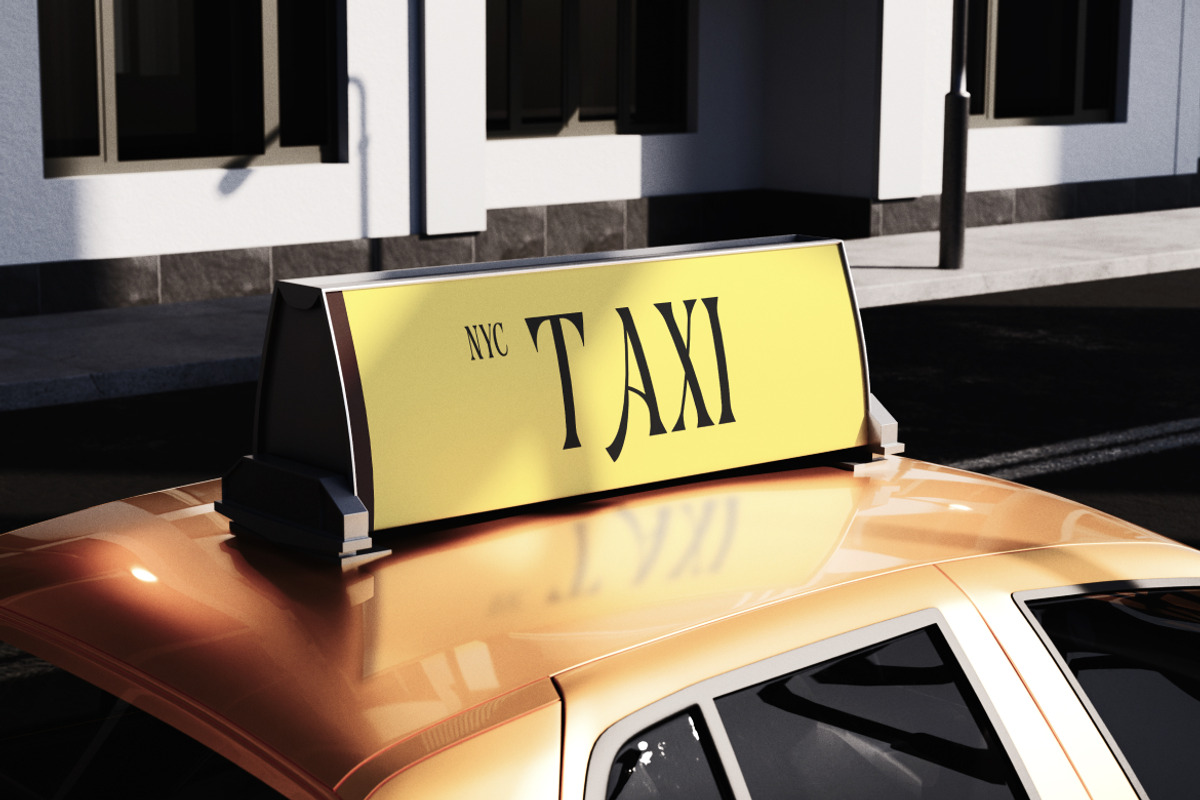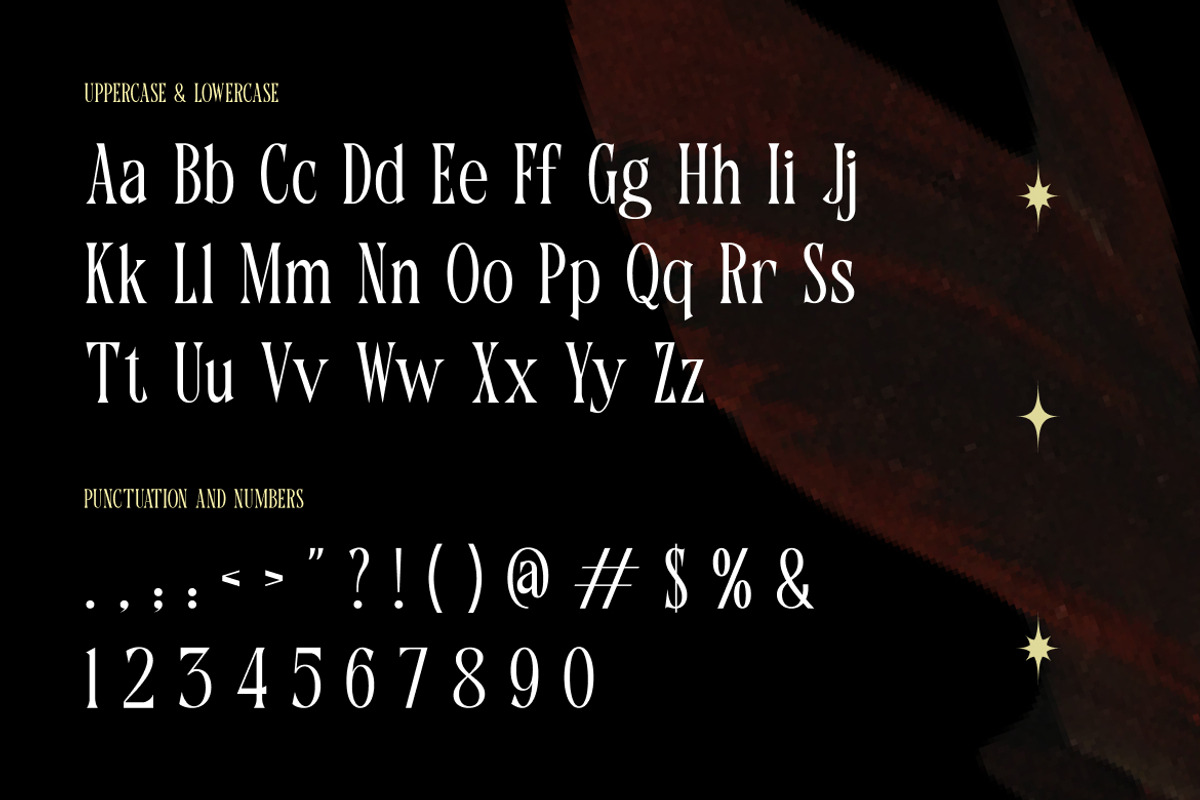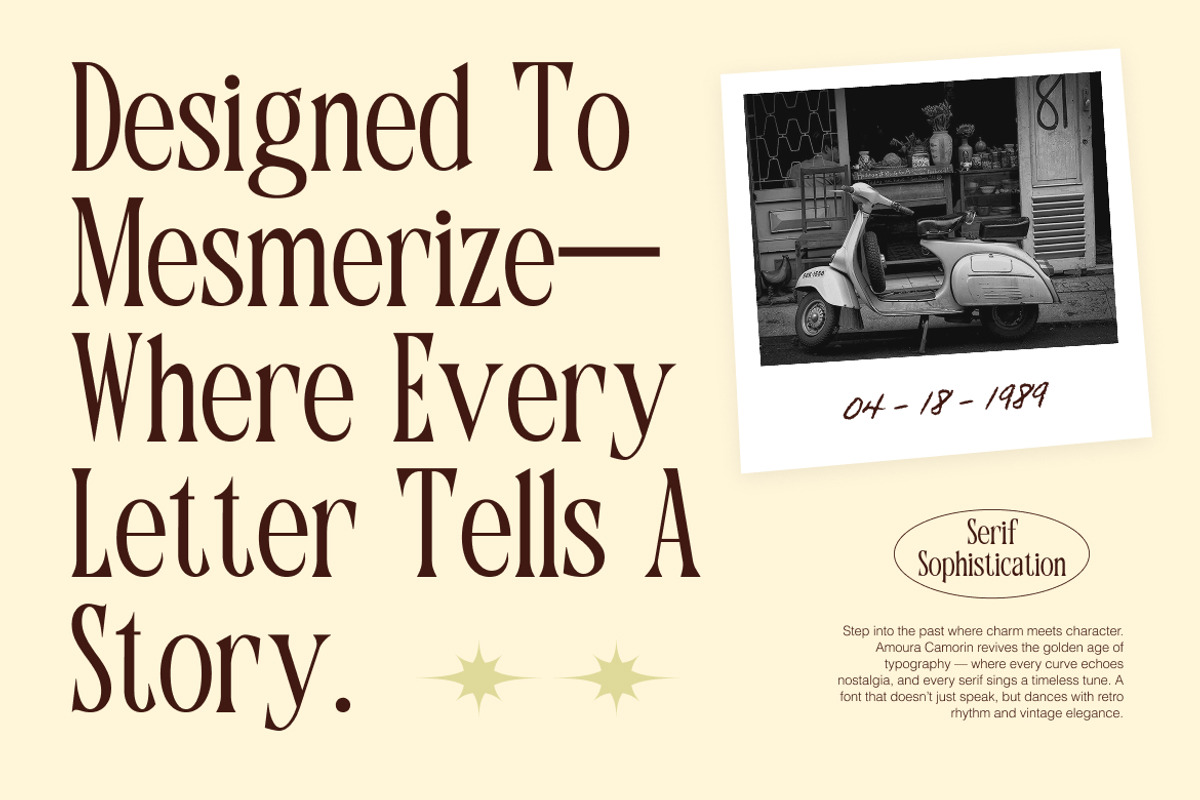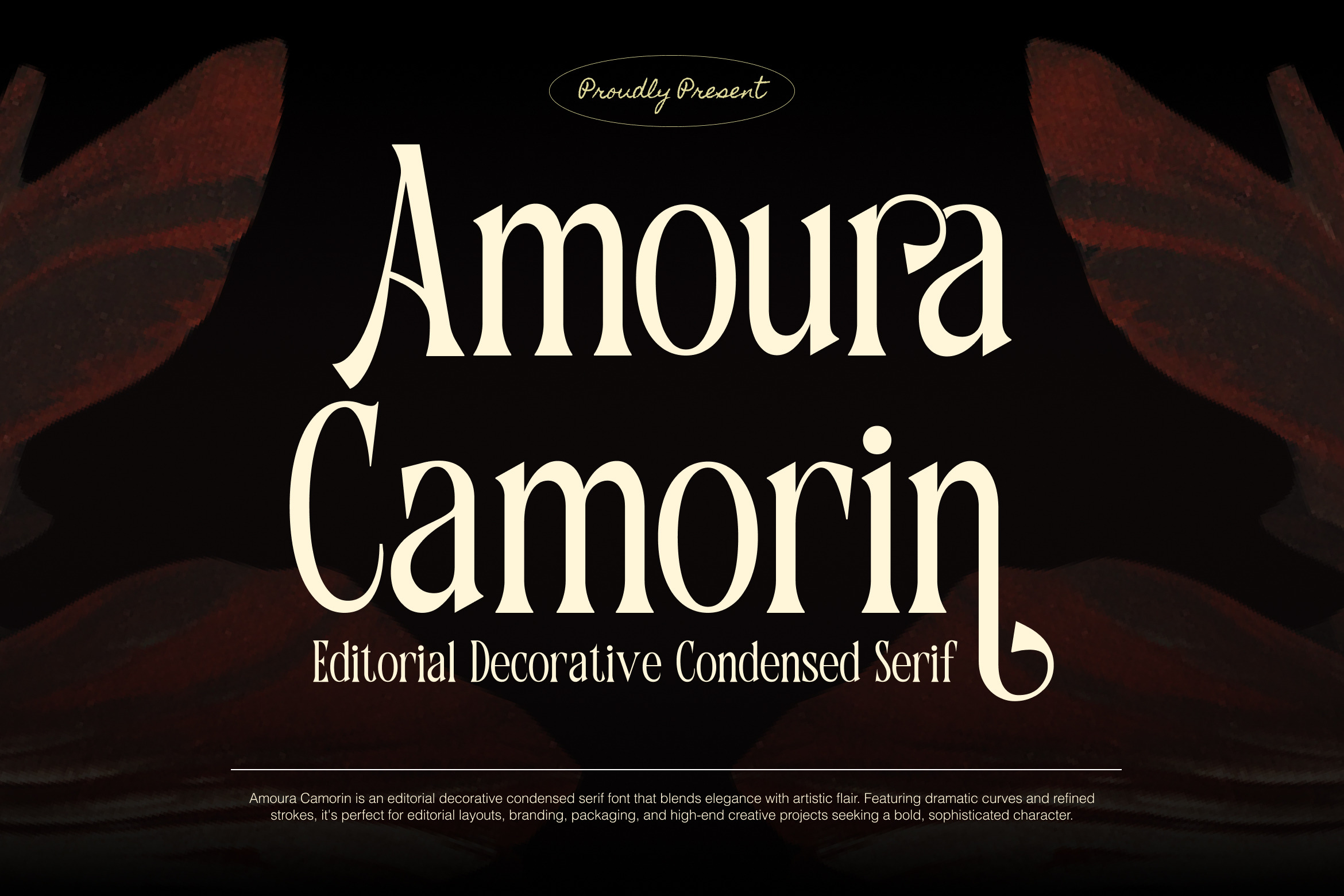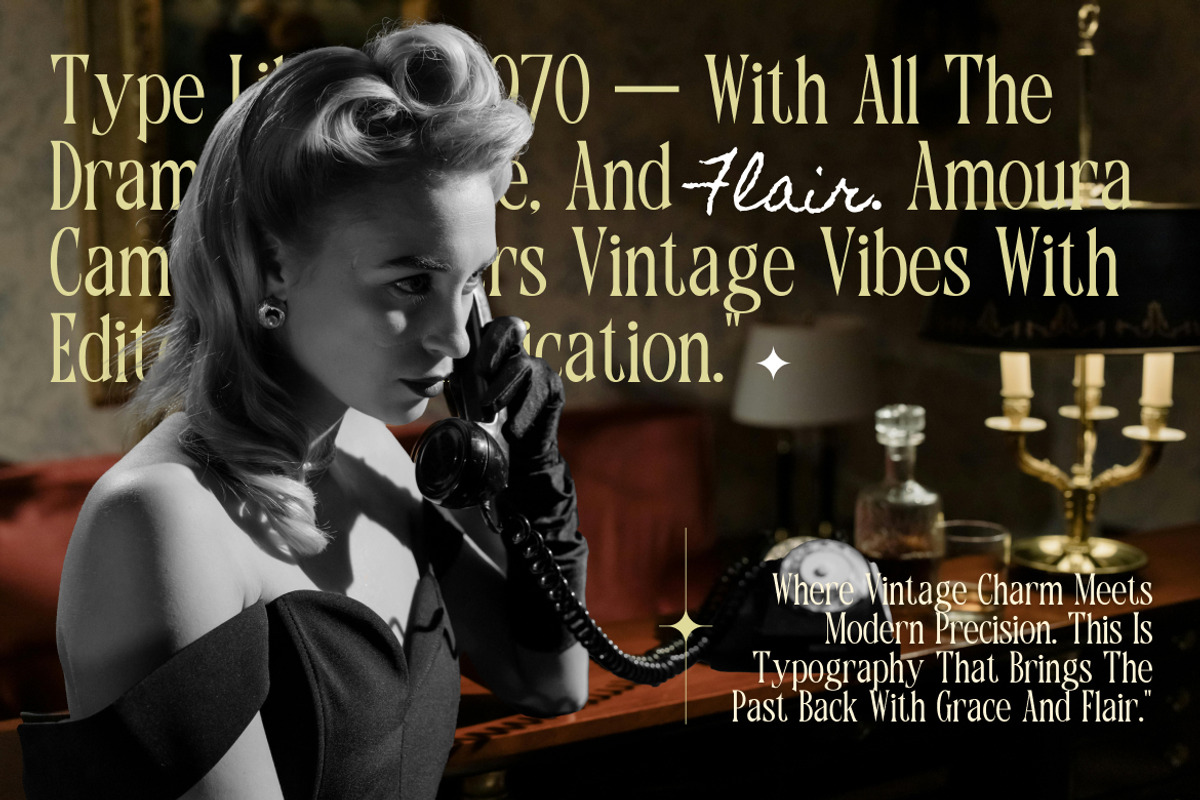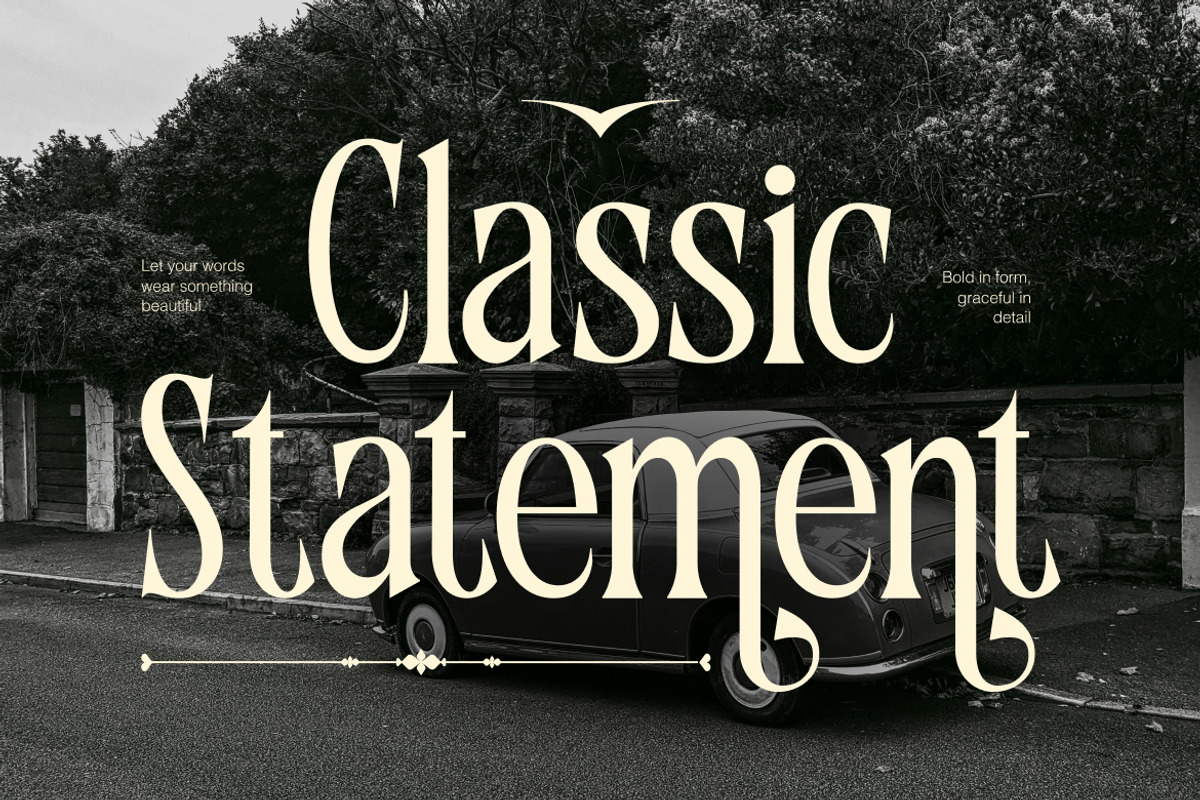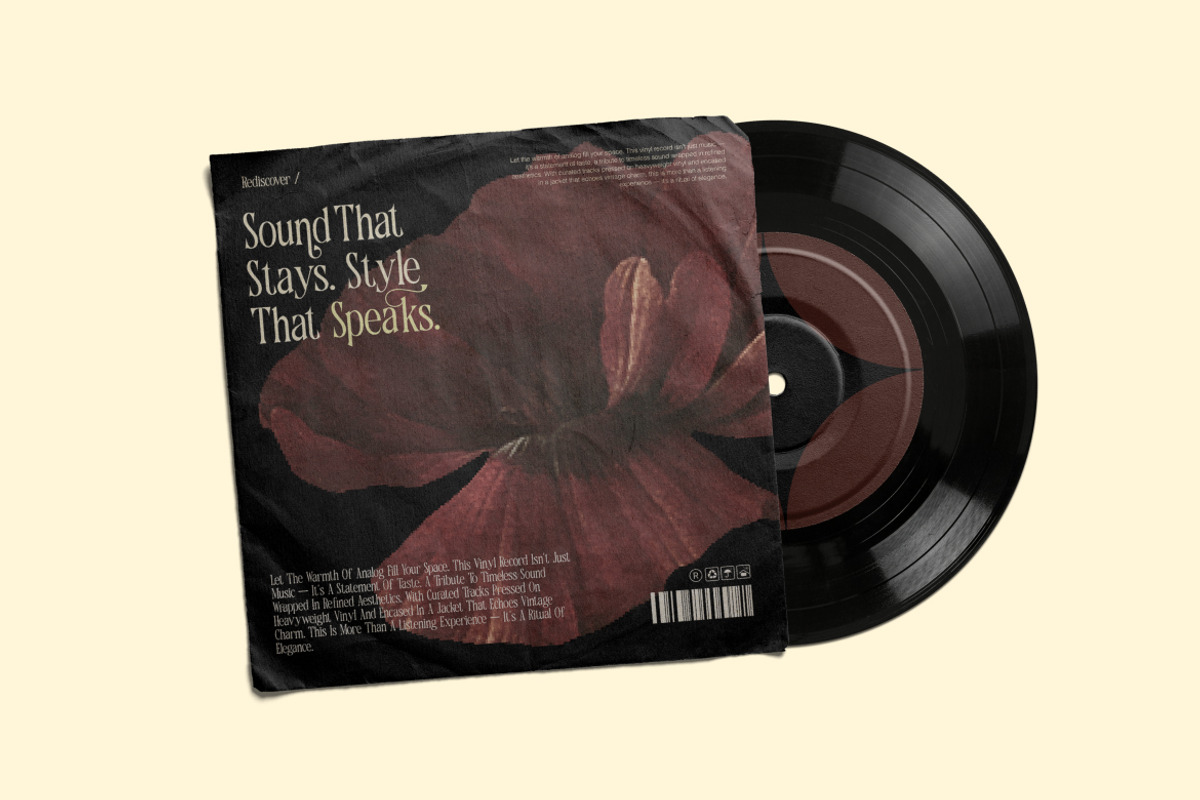
Amoura Camorin Decorative Serif Font
Amoura Camorin is an editorial decorative condensed serif typeface that blends elegance with characterful flair. Featuring dramatic curves, artistic terminals, and refined serifs, it brings a dynamic yet sophisticated voice to any design. This typeface includes uppercase and lowercase letters, numerals, punctuation, and multilingual support.
Amoura Camorin is perfect for projects that demand visual personality and refined style. Its expressive condensed form and decorative touches make it ideal for magazine covers, fashion editorials, branding identities, luxury packaging, social media graphics, stylish posters, and high‑end marketing materials where a distinctive, editorial aesthetic is key.
- Dramatic contrast between curves and sharp strokes for visual sophistication
- Condensed proportions ideal for impactful editorial layouts
- Decorative flourishes with refined, artistic elegance
- High legibility despite stylistic details suitable for headlines and branding
- Full character set with punctuation, numerals, and multilingual support
- High-end fashion branding and luxury product packaging
- Editorial magazine covers, spreads, and feature titles
- Poster and signage design that requires strong visual character
- Boutique logo design and upscale personal branding
- Wedding invitations, event stationery, and classic print designs